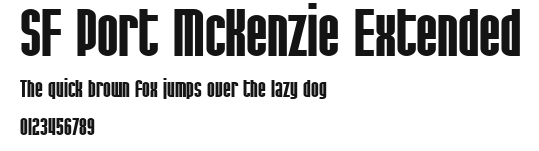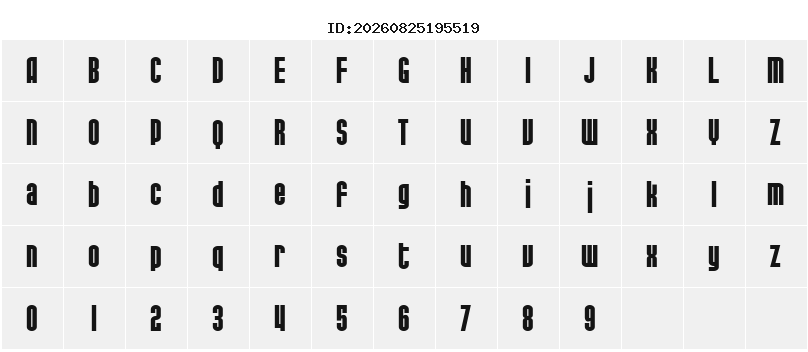
• Font Name: SF Port McKenzie Extended
• Font ID: SF Port McKenzie Extended Bold
• Full Font Name: SF Port McKenzie Extended Bold
• PostScript Name: SFPortMcKenzieExtendedBold
• Character Count: 195
• Copyright: ©1999 ShyFonts Type Foundry
About SF Port McKenzie Extended.ttf
SF Port McKenzie Extended.ttf is a modern, elegant sans-serif font designed for ultimate readability and visual harmony. Perfect for branding, headlines, web design, and print materials.